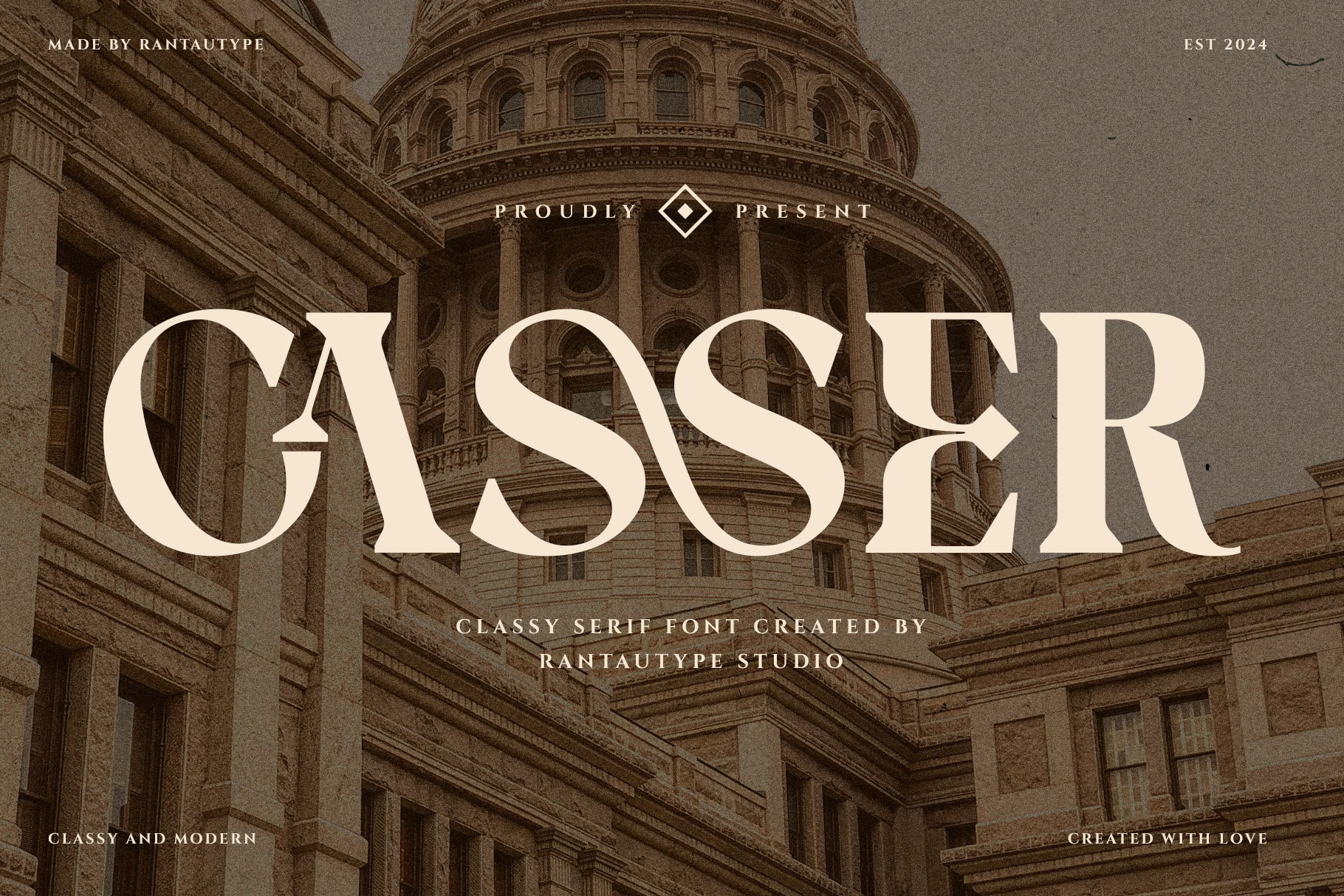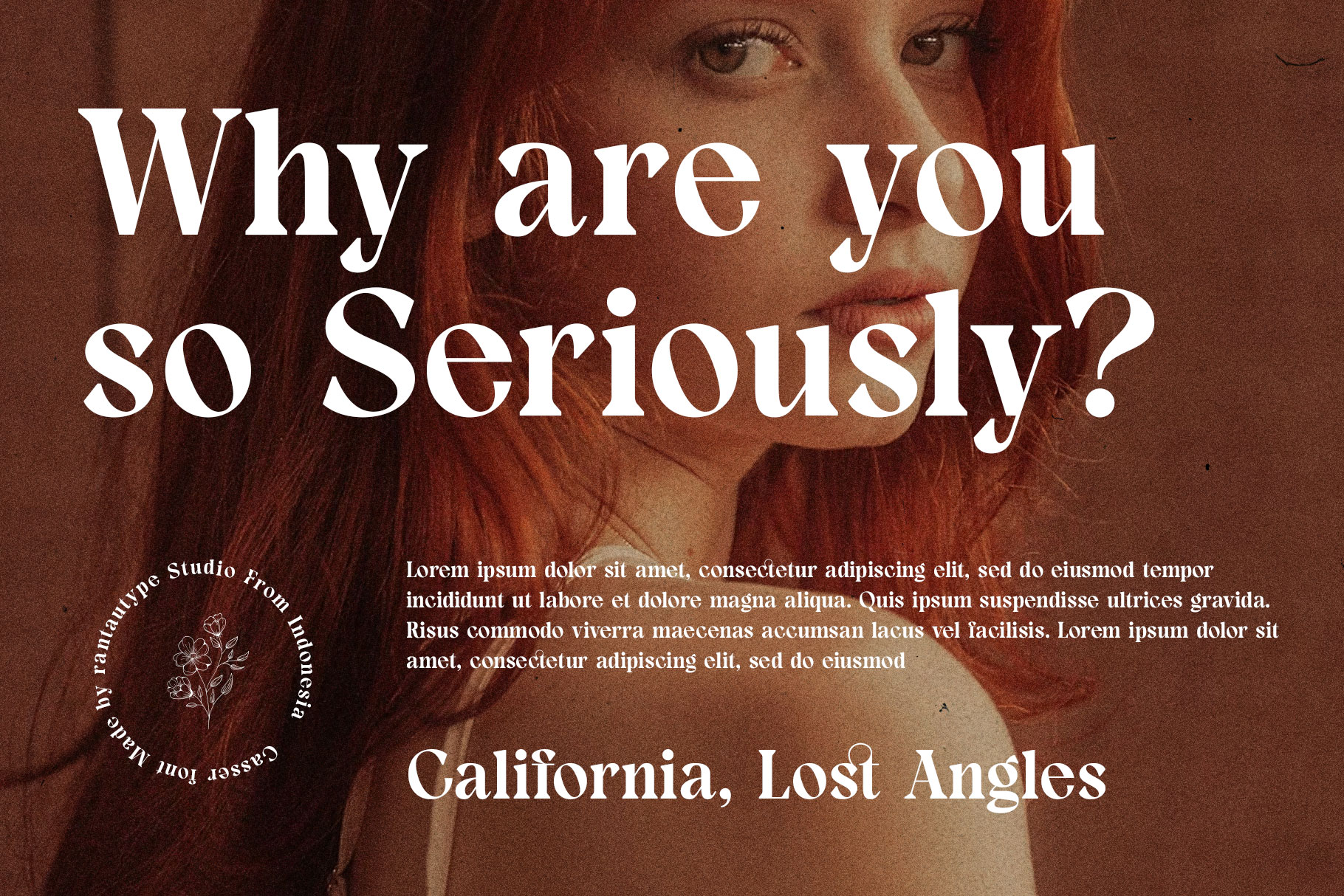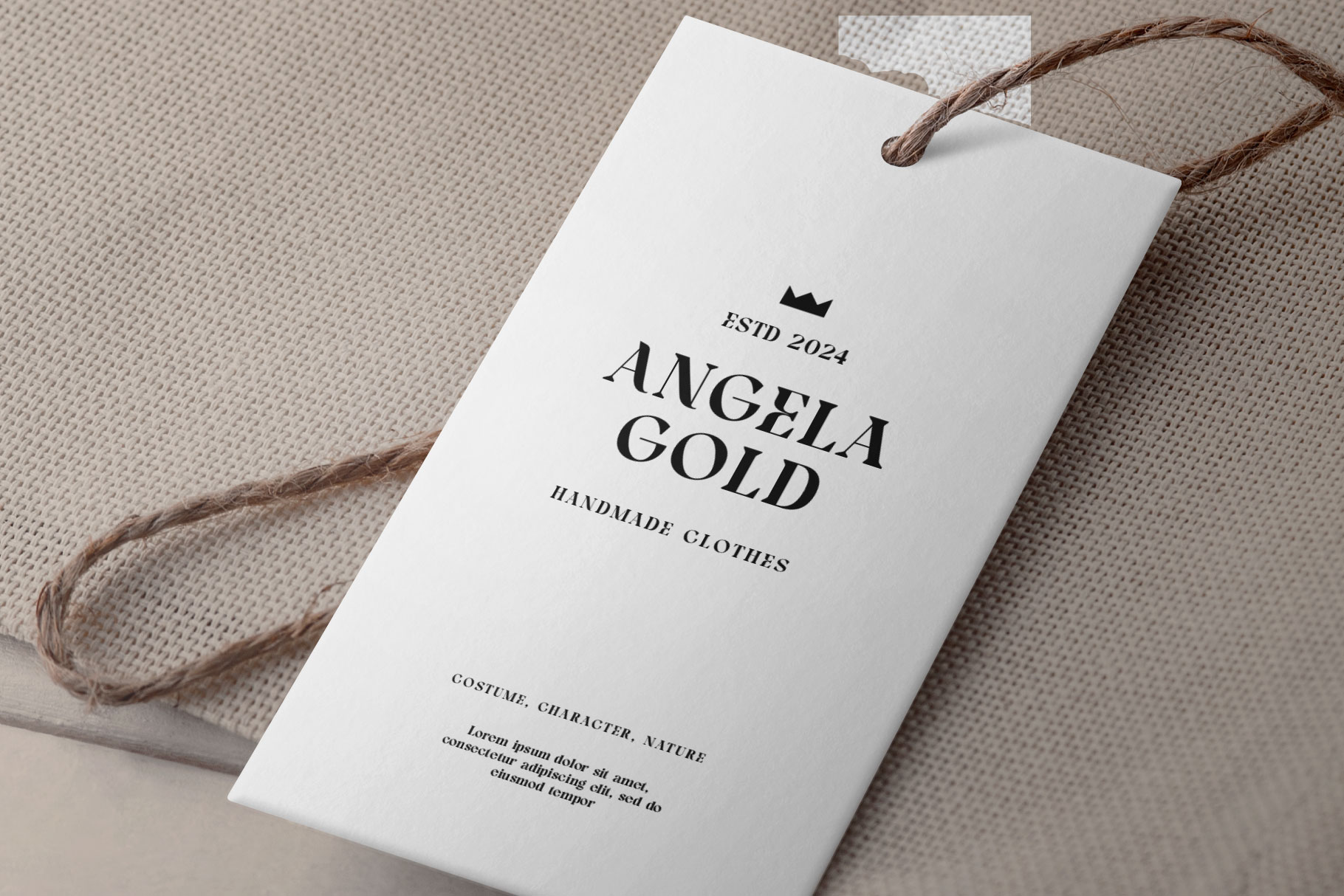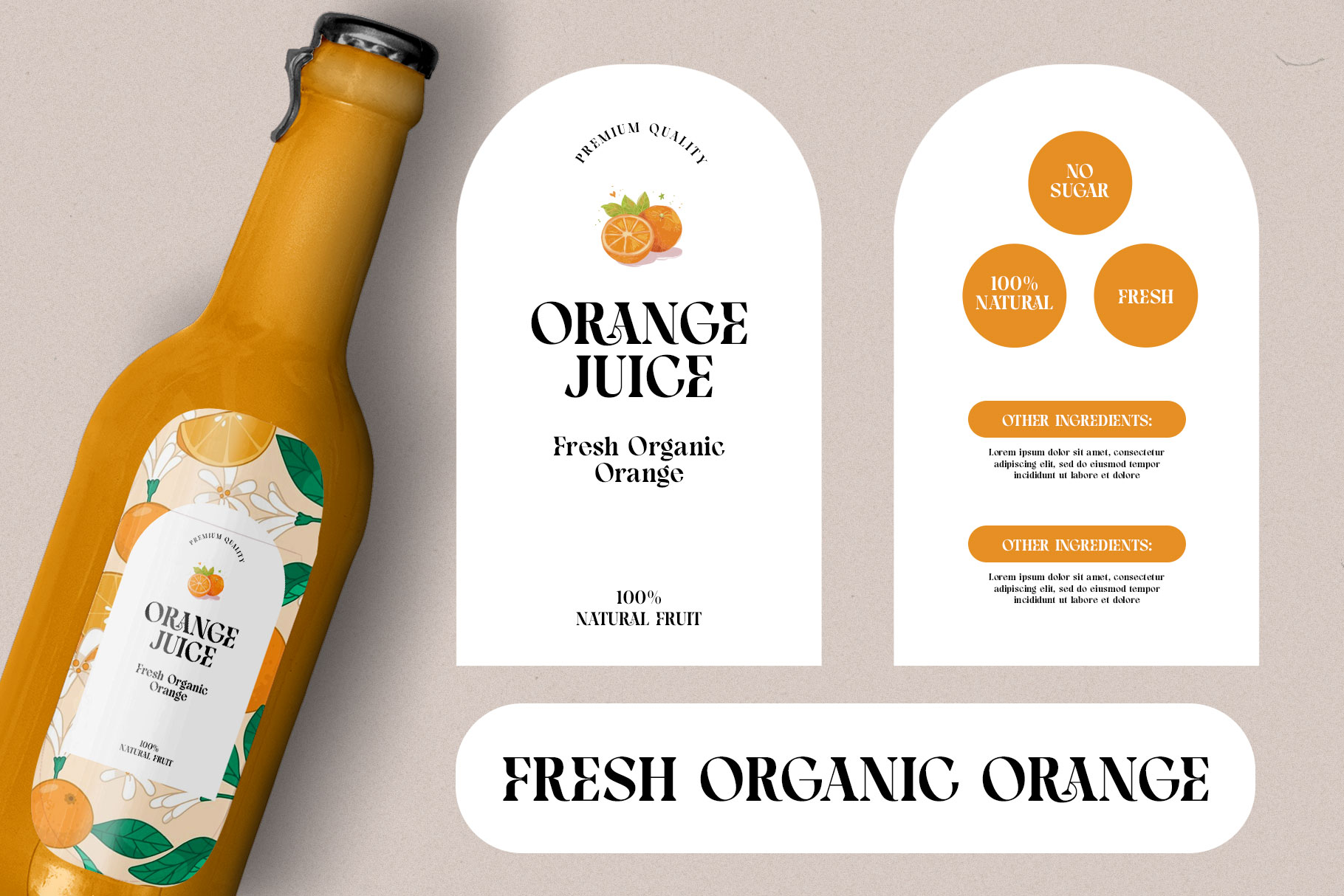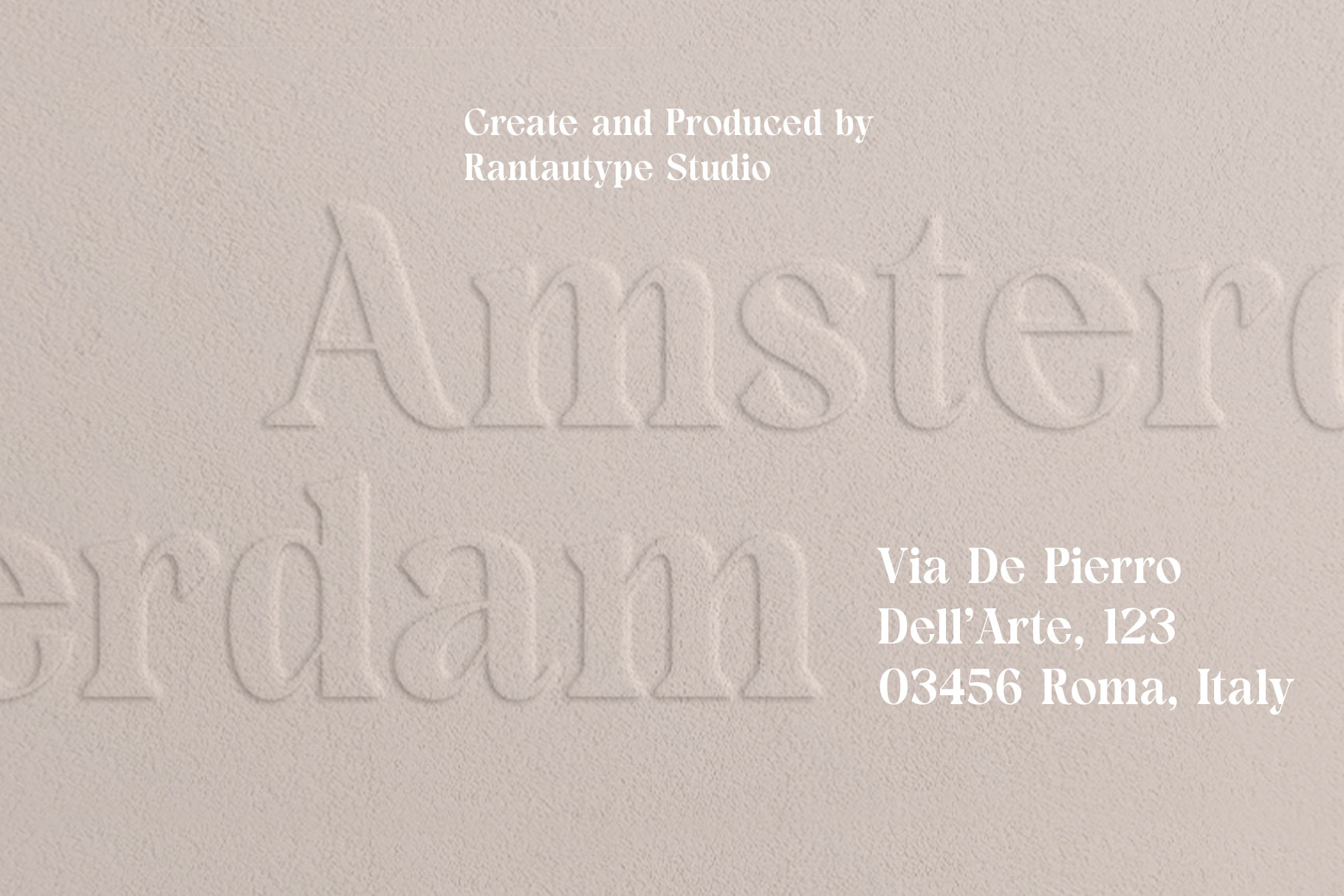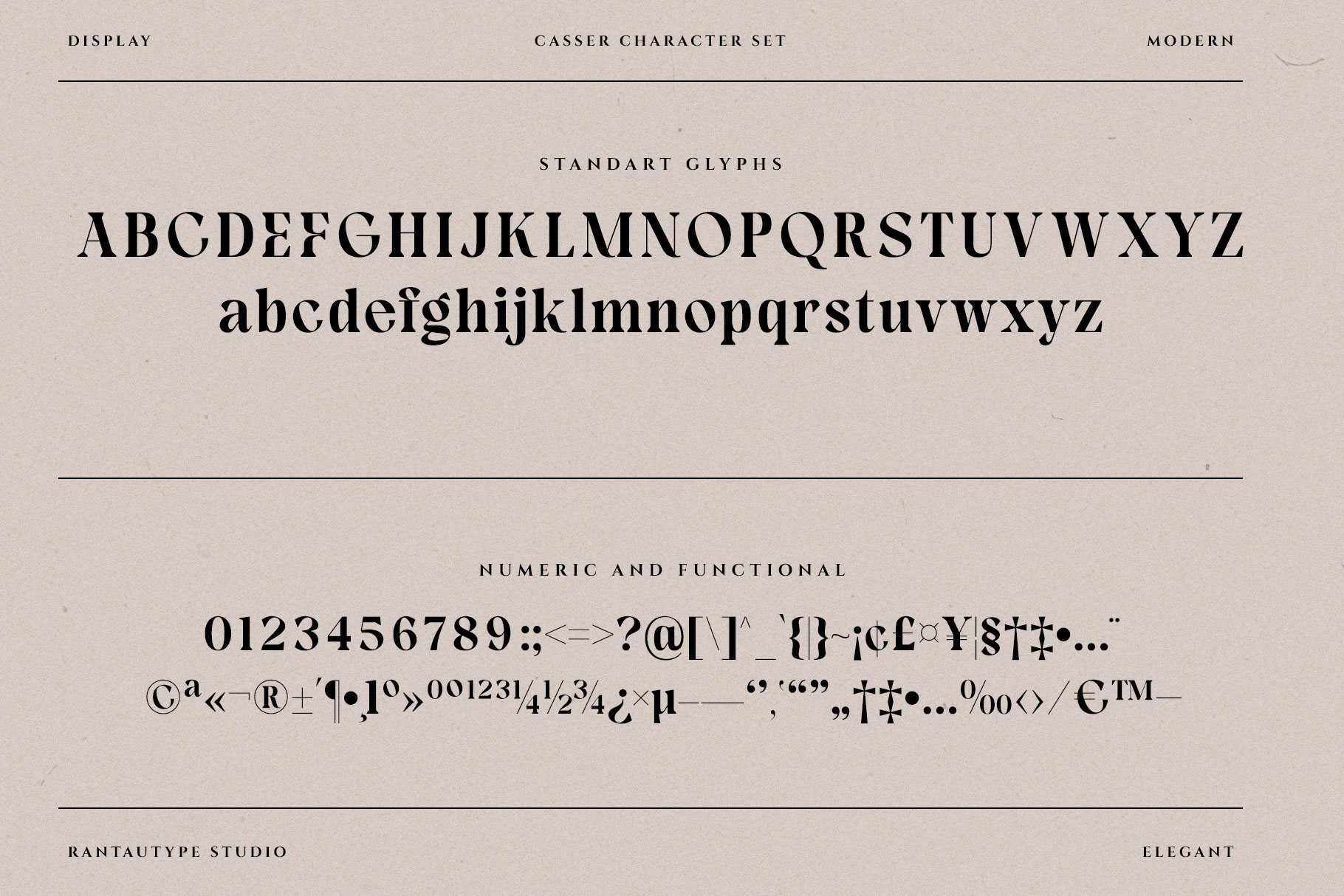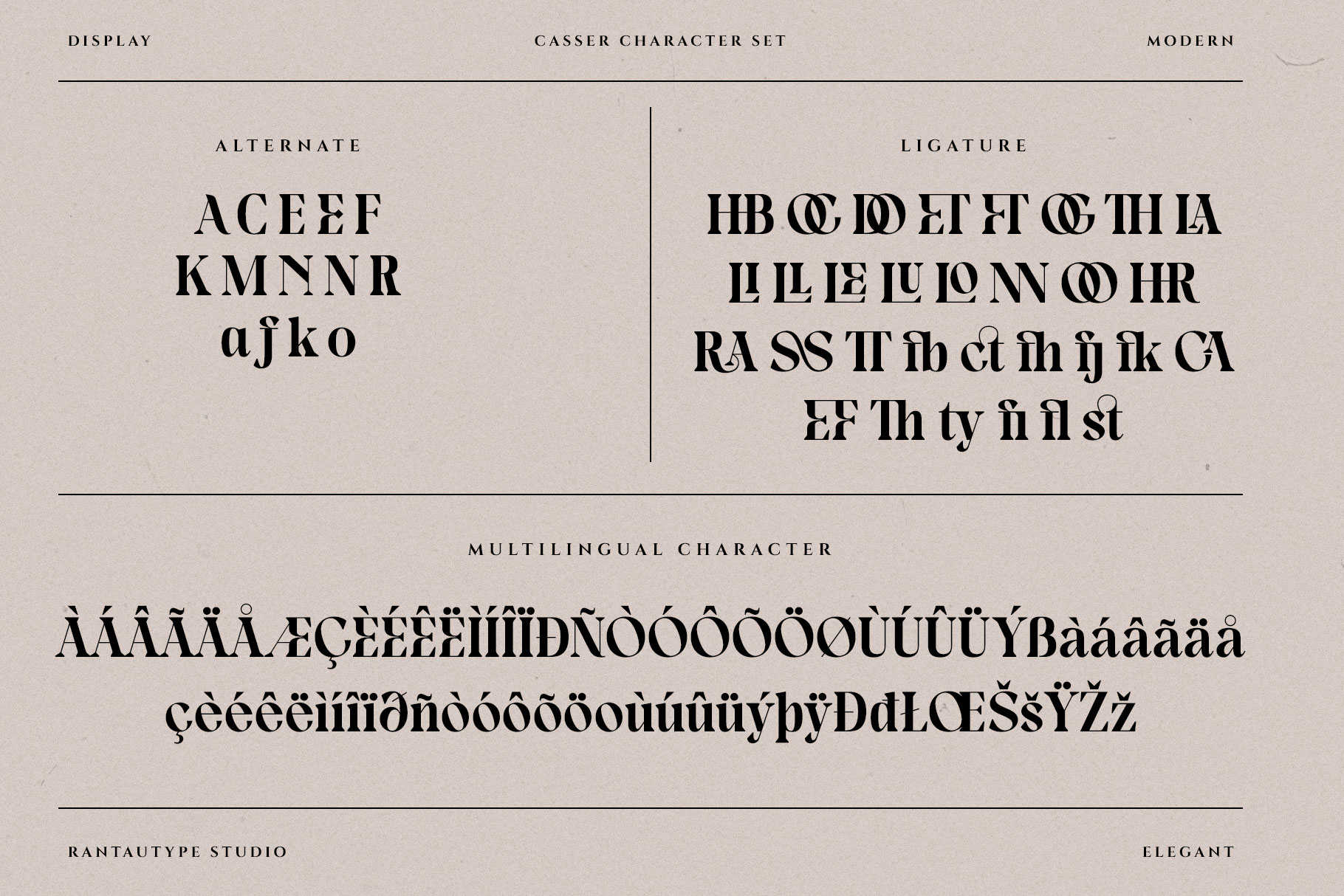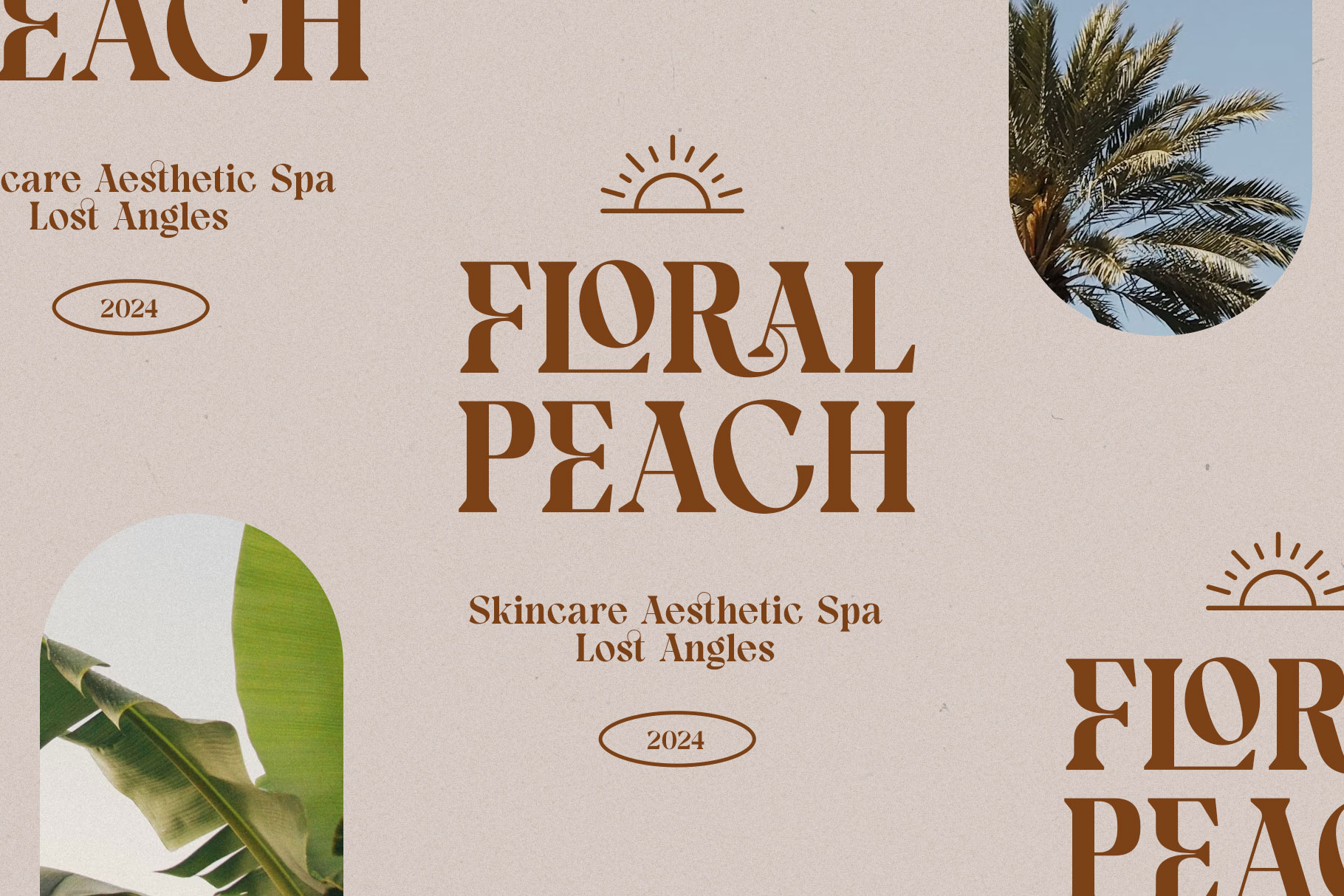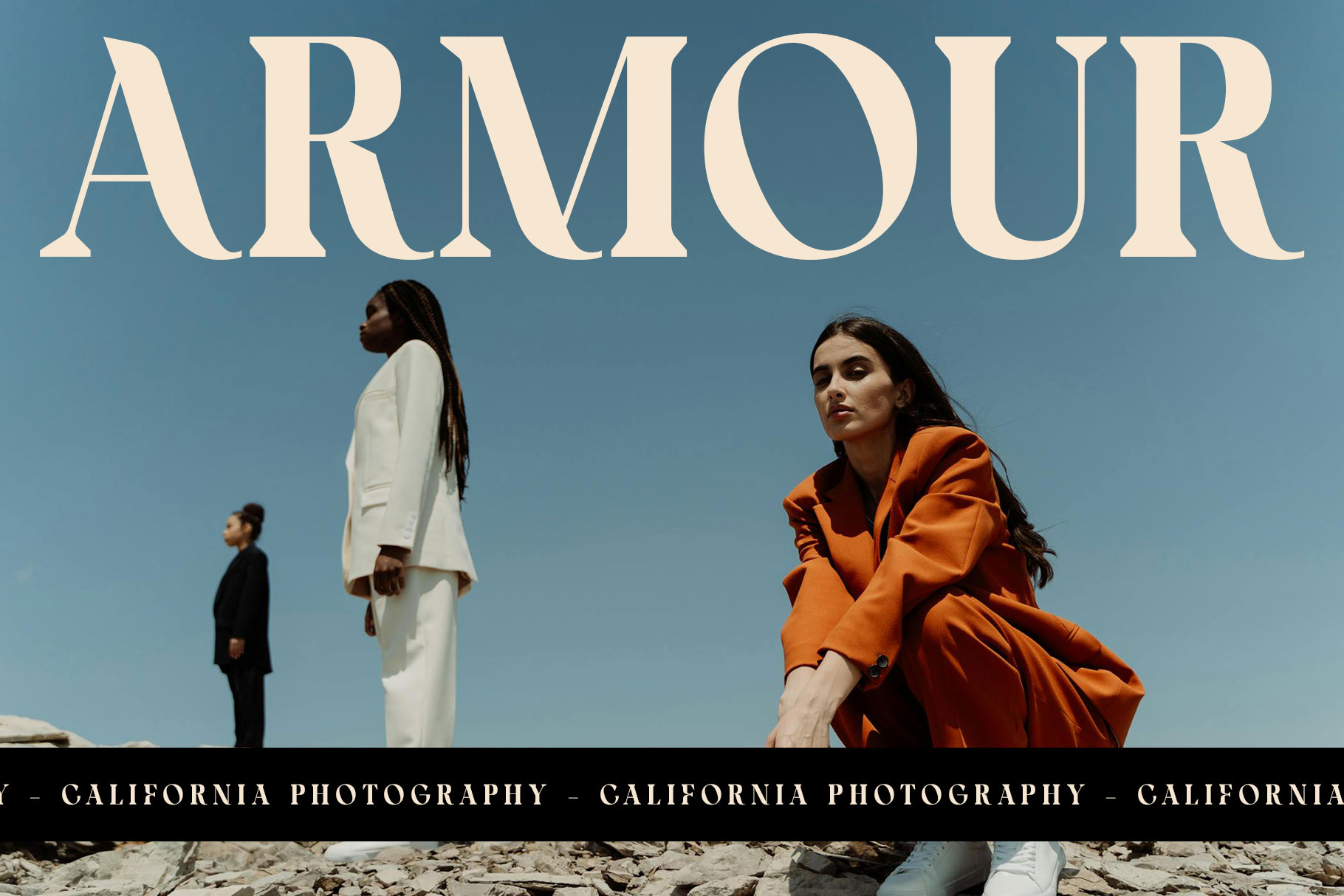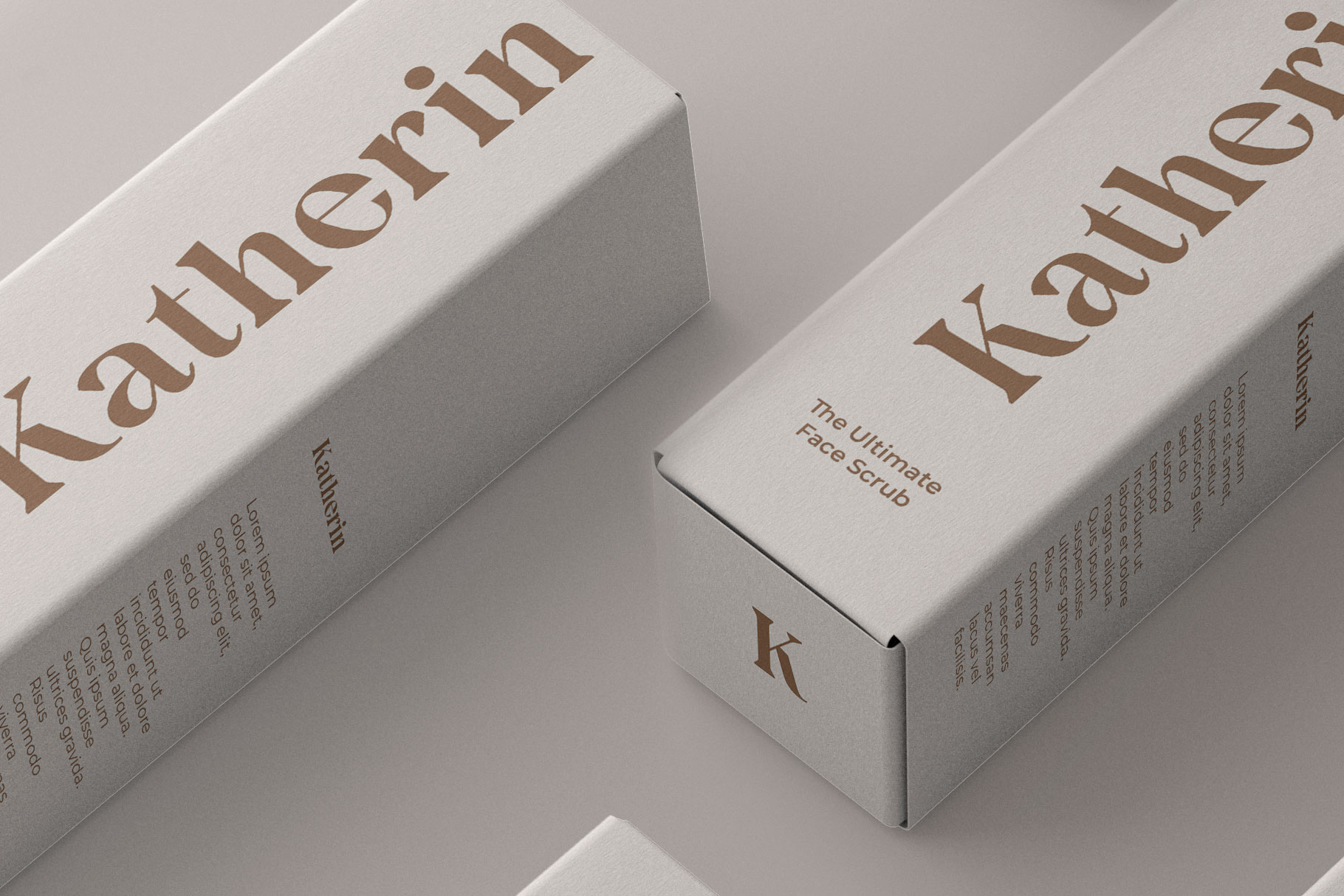
Casser Classy Serif Font
Casser is a modern, feminine, display serif font that embraces elegance and grace. Its delicate curves and refined details create a sense of sophistication and femininity. Casser brings a touch of charm and sophistication to branding, editorial designs, and more with its versatility and contemporary appeal.
Casser is a perfectly choice for any creative endeavor, chic, lifestyle design such as logos, advertisements, watermark on photography, stationery, branding project, display and magazine, invitation, corporate brand, product design, label, business project and many other project with elegant touch.